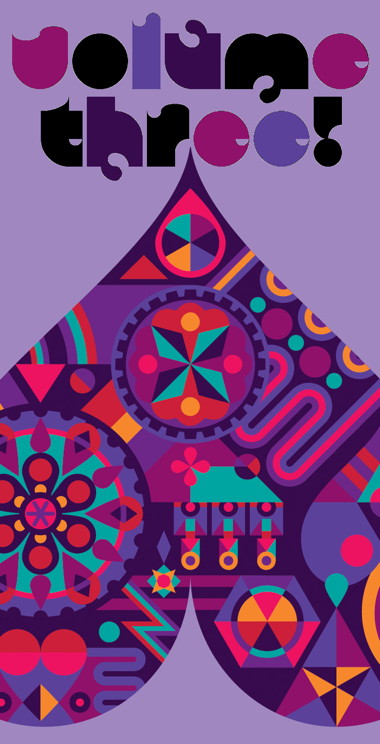
What a cute, cuddly (but slightly sticky) design :) 10/10
Stylish! Loving those numbers.
@ architaraz: Thank you veeeery much. I'm not with all they at 100%. I think I can improve some of them (at this point, all suggestion are welcomed, pals)...
Ok! I didn't know this method! Concerning the font, i like how more and more, even if you still start from modular basic shapes, you find ways to push these basis to a different and much more interesting spirit than the classic basic shapes serving as foundations. I think it was there since the beginning but with maturity you seem more at ease with this "plus" which makes your work more and more unique.
Very cool. I love the ying-yang.
I love it! And, I agree with AFT—your work it amazing. I actually like the alternative glyphs for v, w, and y, but the roundness of the original v and w tend to fit better with the rest of the font.
Awesome! AFT nails it. Could there be an alternate x that is rounded, maybe like the k?
@all: Thank you very much, my friends (specially AFT, you blush me with your comments)! I'm looking for the x for ETH.
Excellent work, in your style but very new.
@four: Thanks, compañero, but... have I a style?, really?.. How is it? It's difficult to me to see it; help me with this, please.
Very original, delicious!
You definitely have a style - it's fun, inventive but always well balanced.